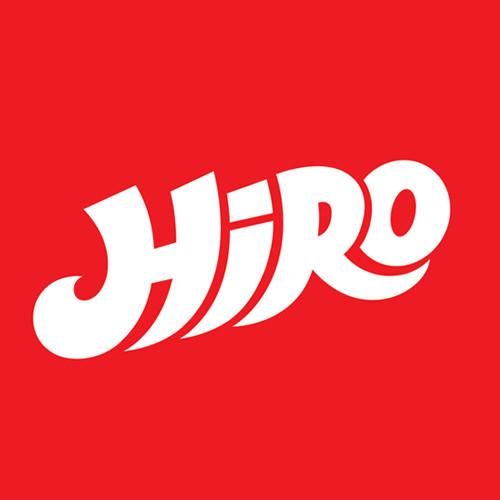
Quickly Brown Font Description
Quickly Brown is a cool, chunky lettered and paint brushed display font. Whether you are using it for cartoon-related designs, children games, quotes, titles, brand names, book covers, posters, or just any creation that requires a touch of joy, this font is a great choice.